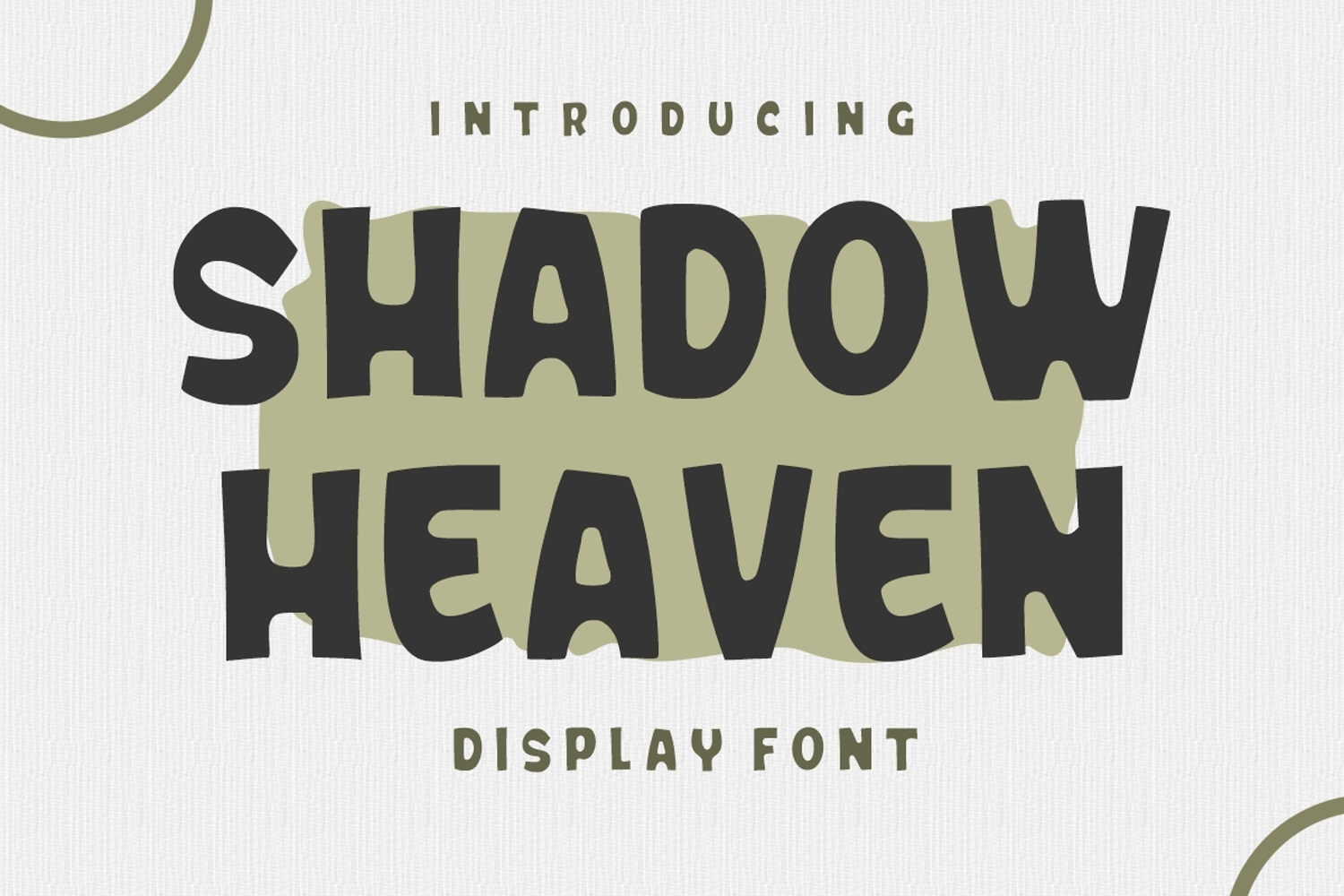
Shadow Heaven
Shadow Heaven is a playful, cute, bold, easy-to-read display font that conveys impeccable friendliness. Whether you’re using it for crafts, digital design, presentations, or making greeting cards, this font has the potential to become your favorite go-to font, no matter the occasion!